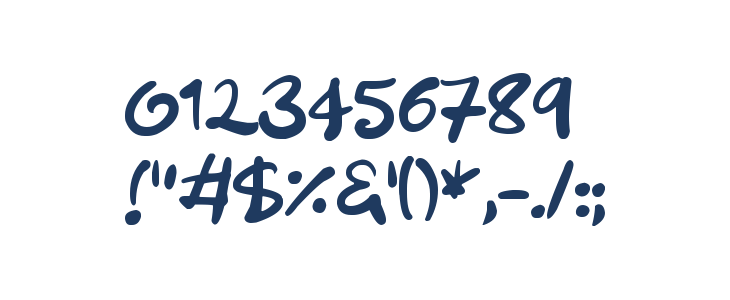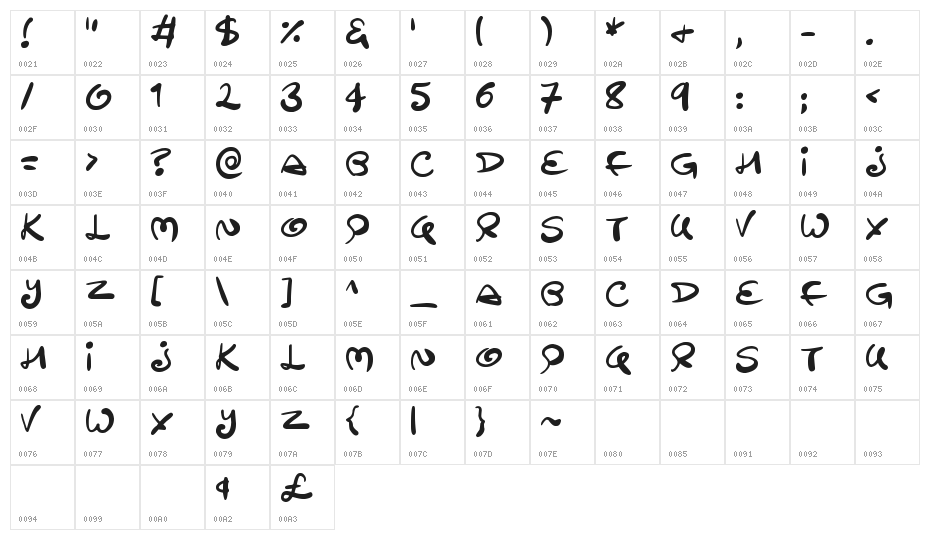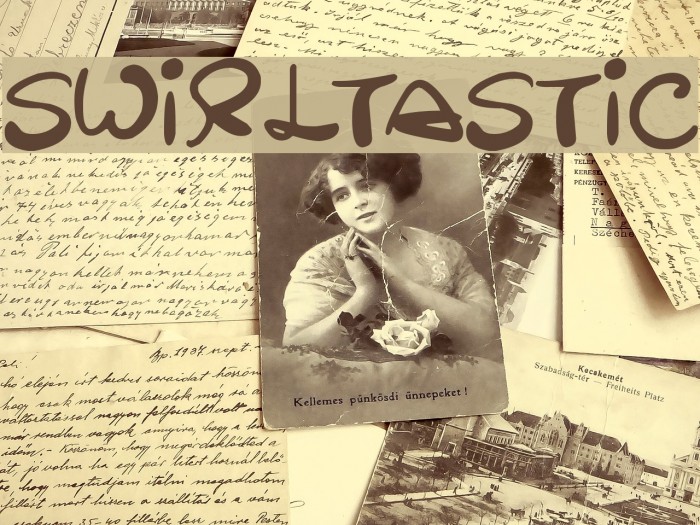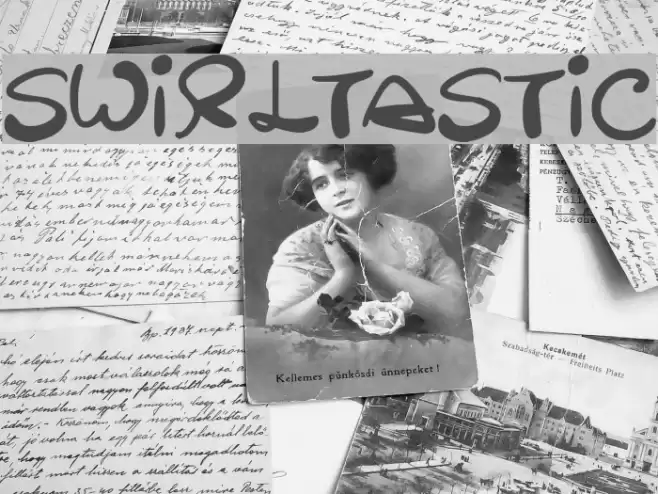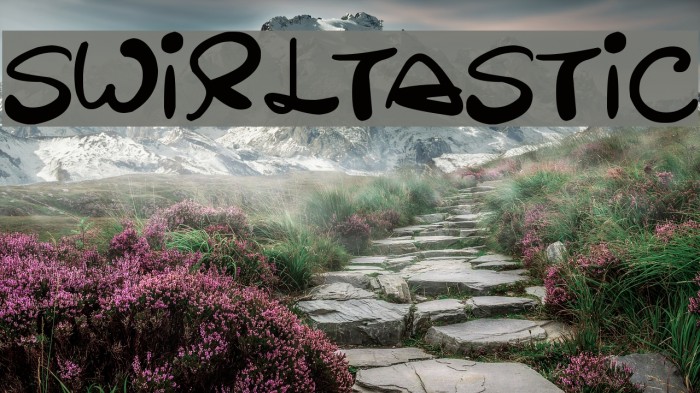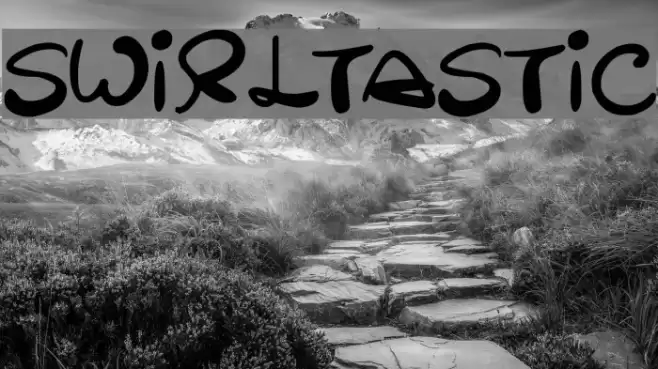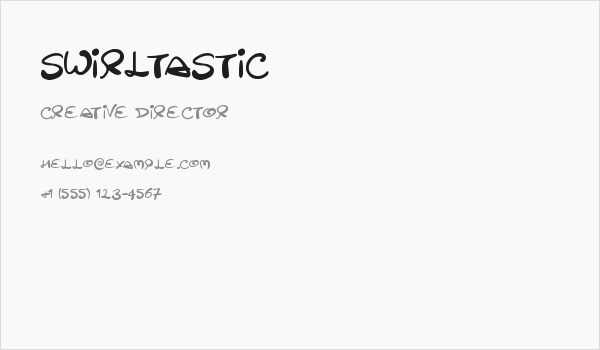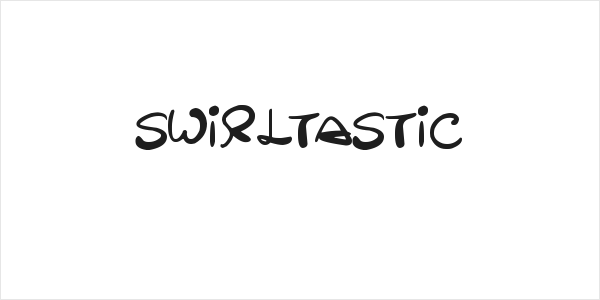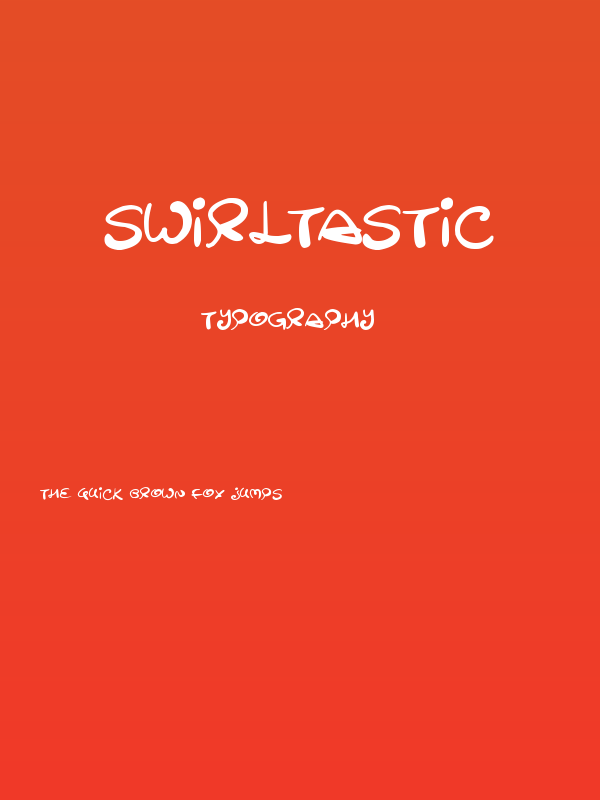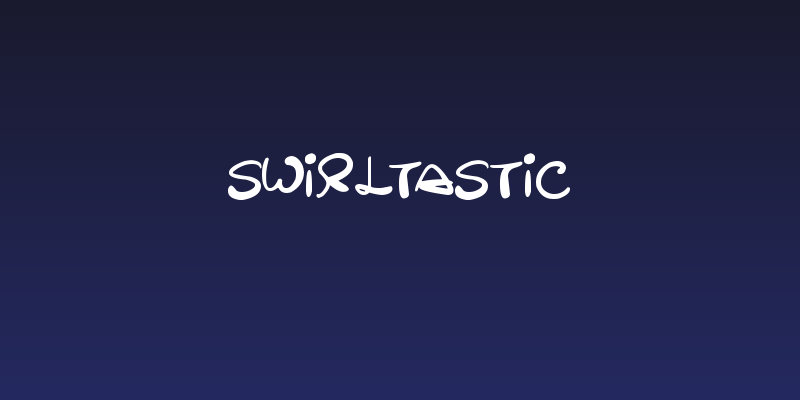
This font features a playful and dynamic style with a handwritten appearance. The characters are bold and exhibit a swirling, fluid motion that adds a sense of energy and creativity. The uppercase and lowercase letters maintain a consistent style, with rounded edges and a slightly exaggerated curvature that enhances their whimsical nature. Numbers and special characters follow the same design principles, ensuring a cohesive look across all elements. The font's unique flair makes it stand out, offering a lively and engaging aesthetic.
| Proposed Projects | Ideal for creative projects such as children's book covers, playful branding, greeting cards, and artistic posters. |